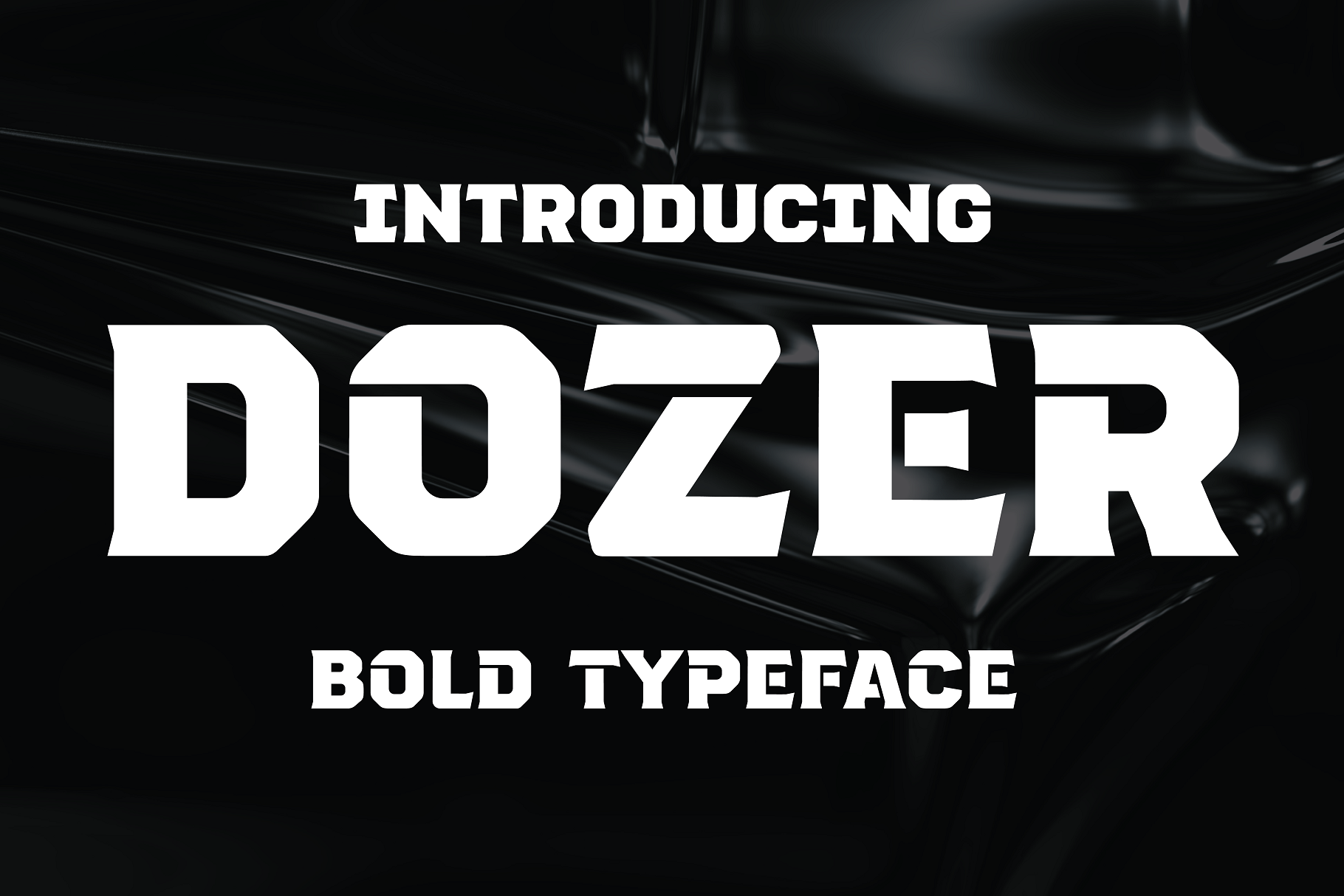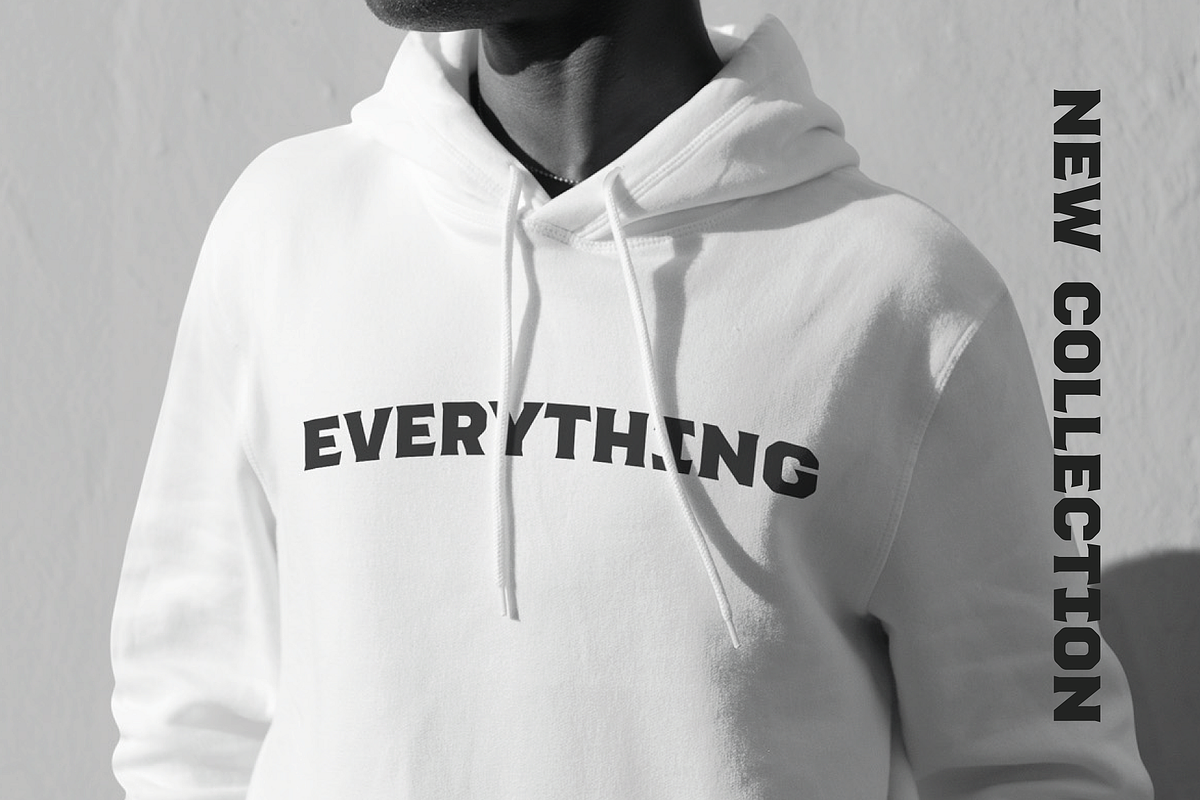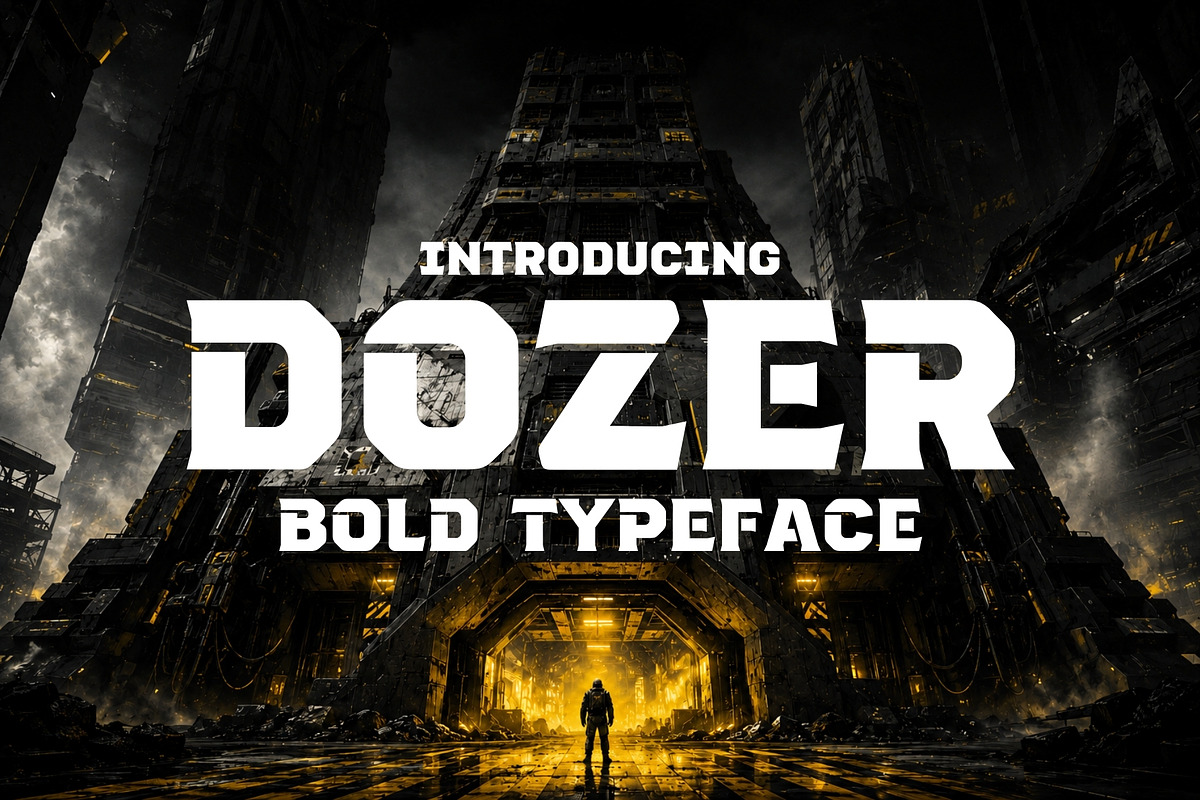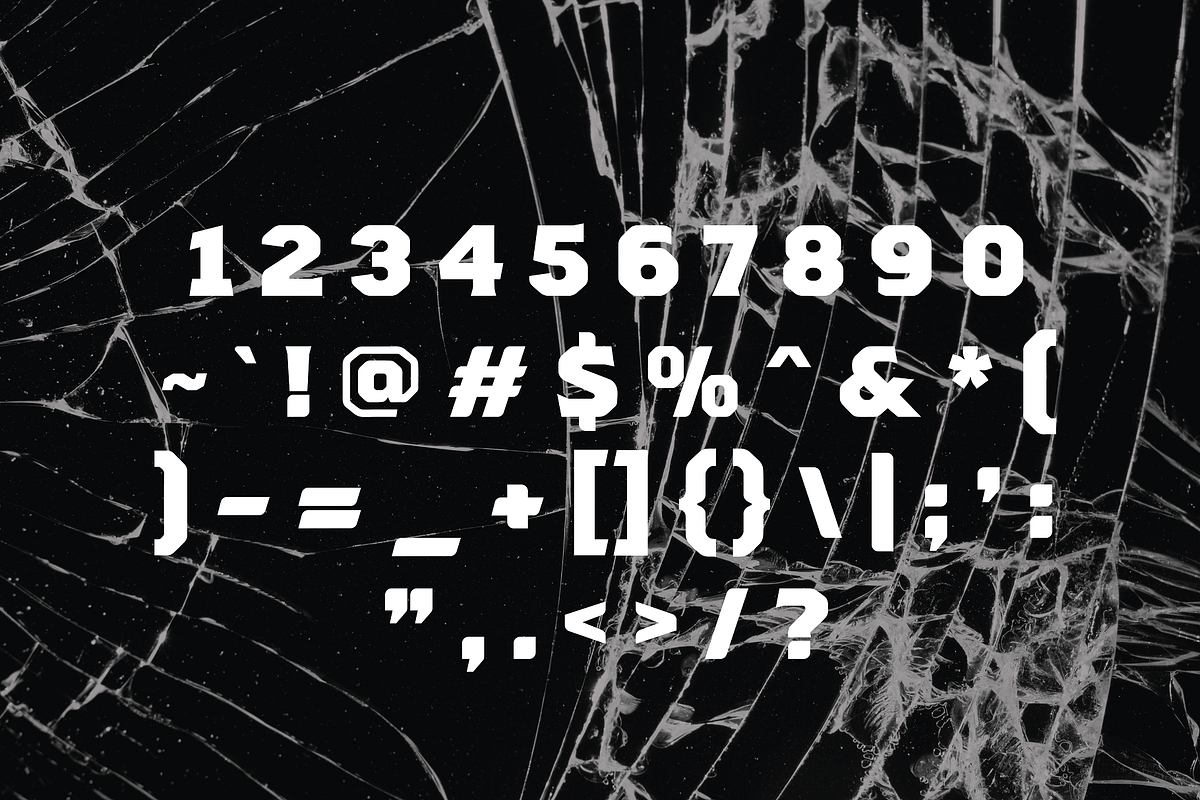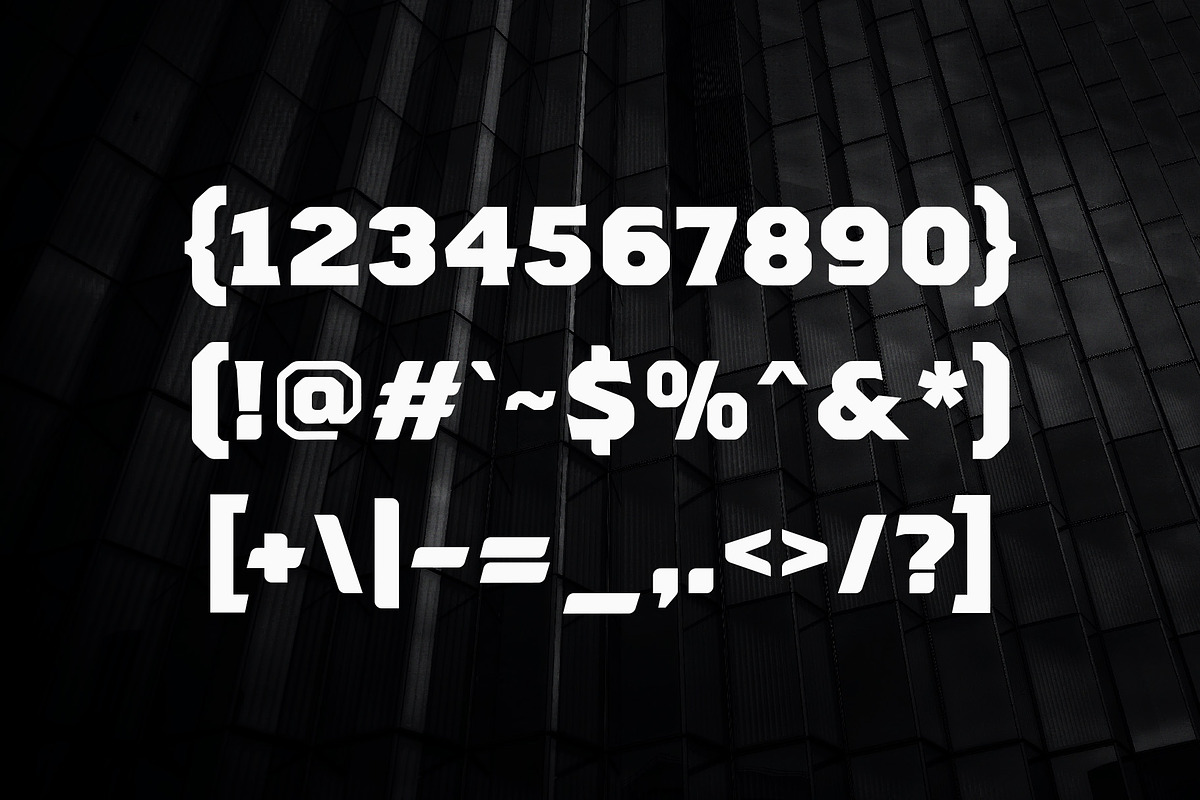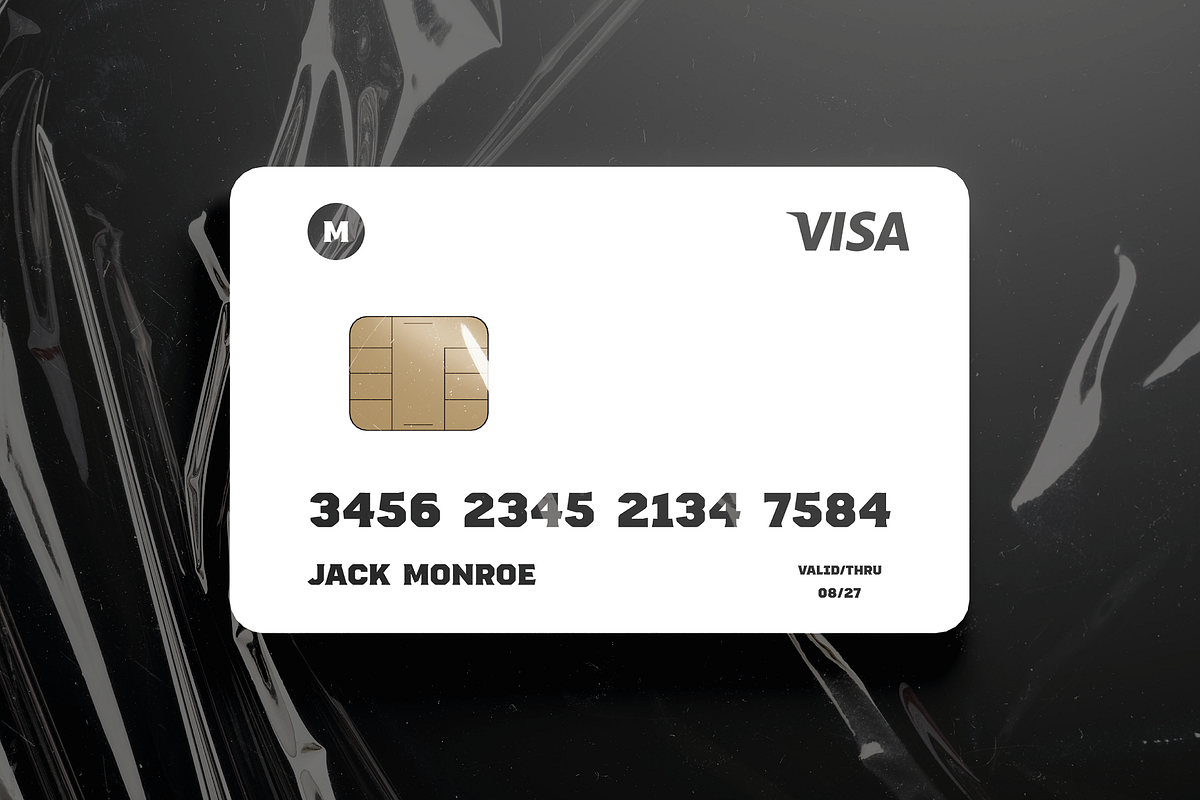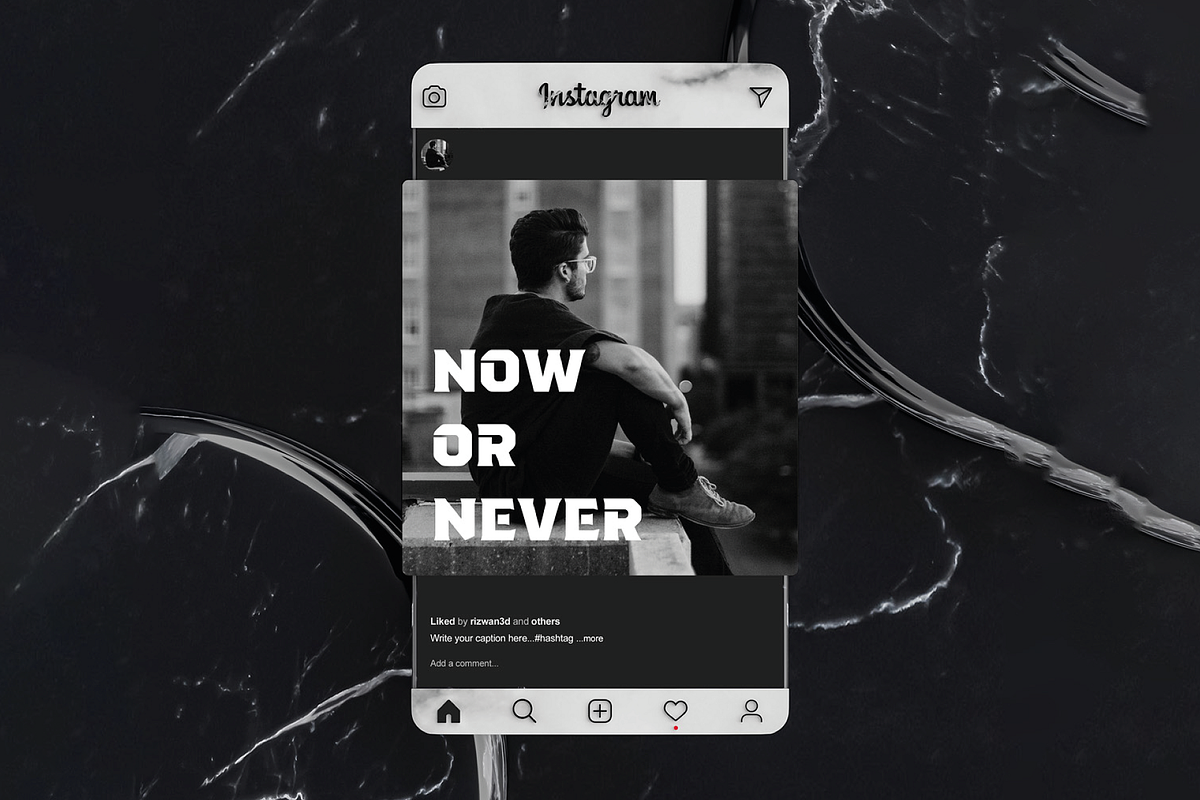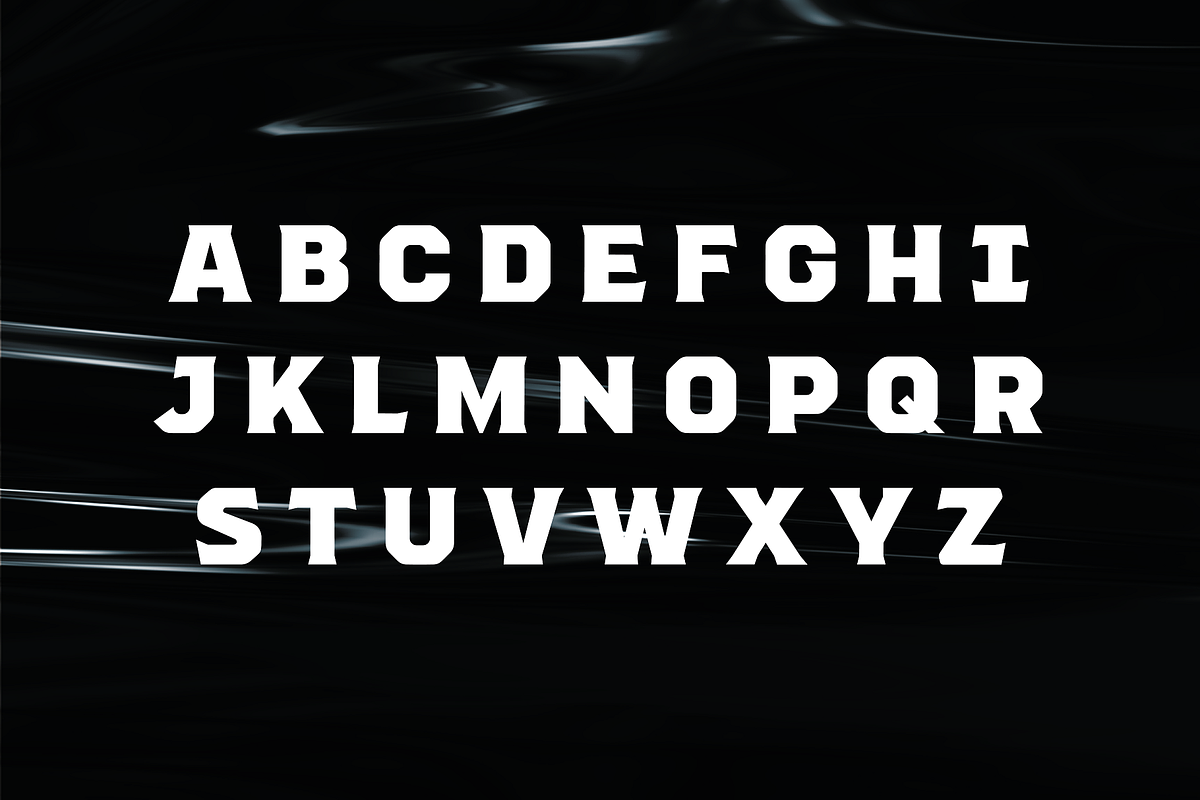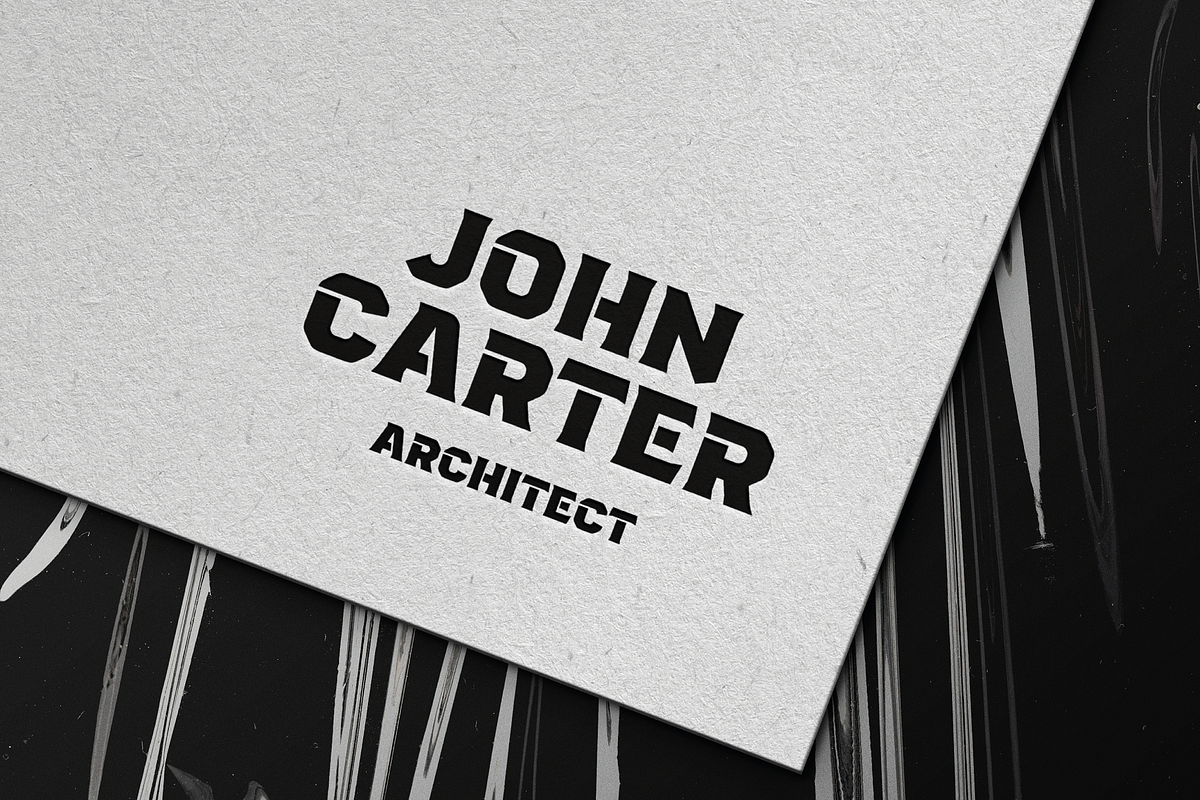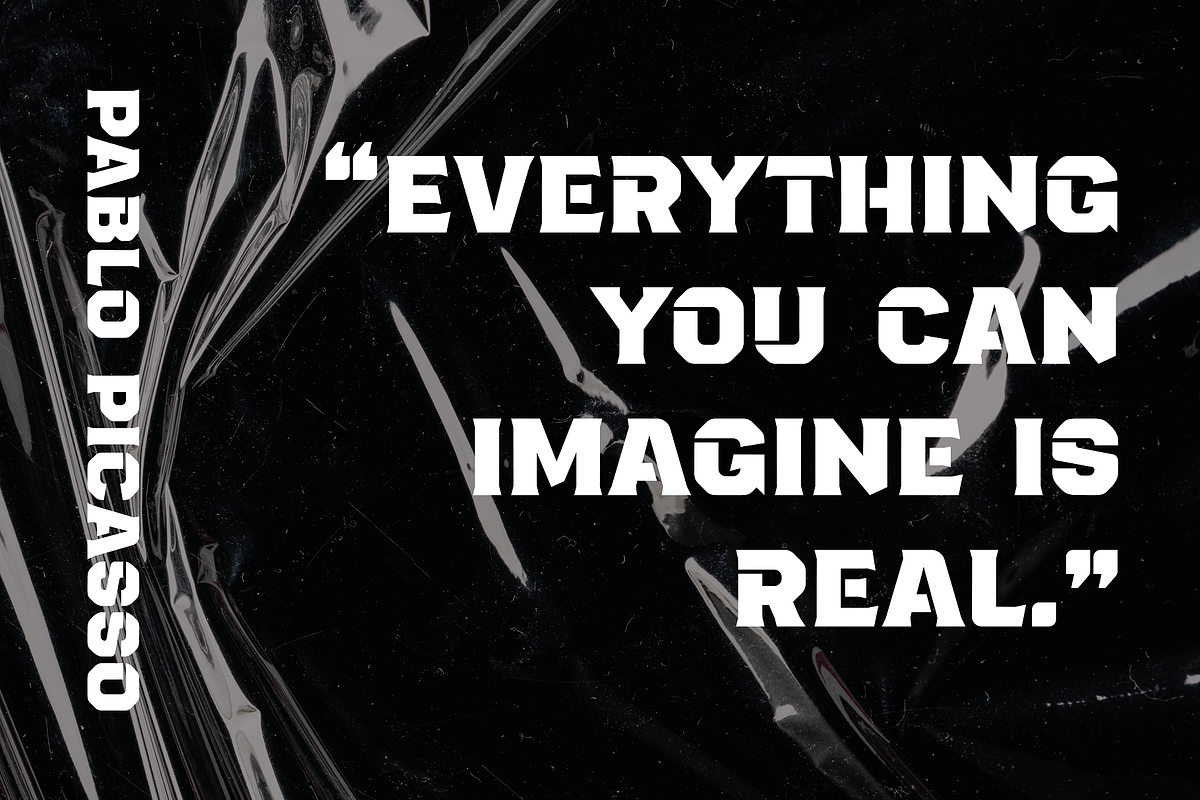
Dozer - Bold & Heavy Typeface
Dozer is a rugged and powerful font designed for those who want to make a bold statement. With its thick, blocky letters and strong, masculine lines, this typeface commands attention and exudes confidence. Whether you're creating a poster, logo, or branding materials, Dozer is the perfect choice for projects that require a bold and assertive style.